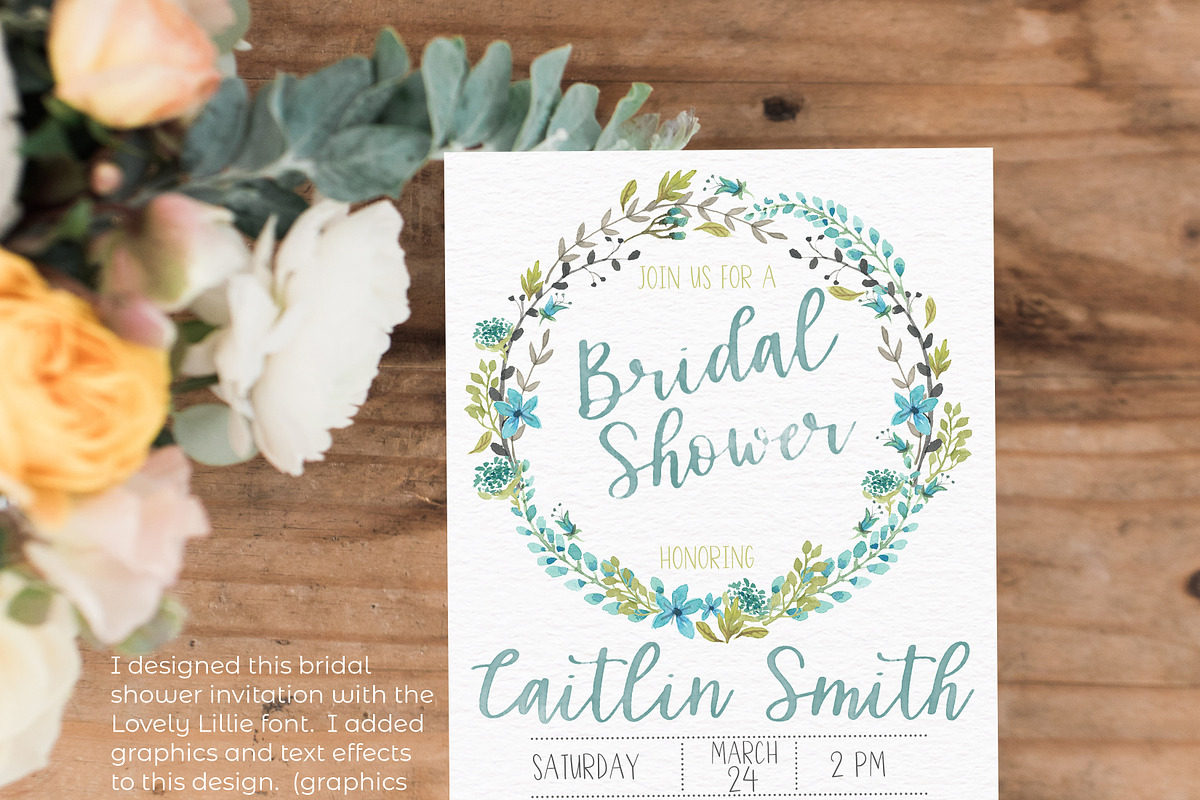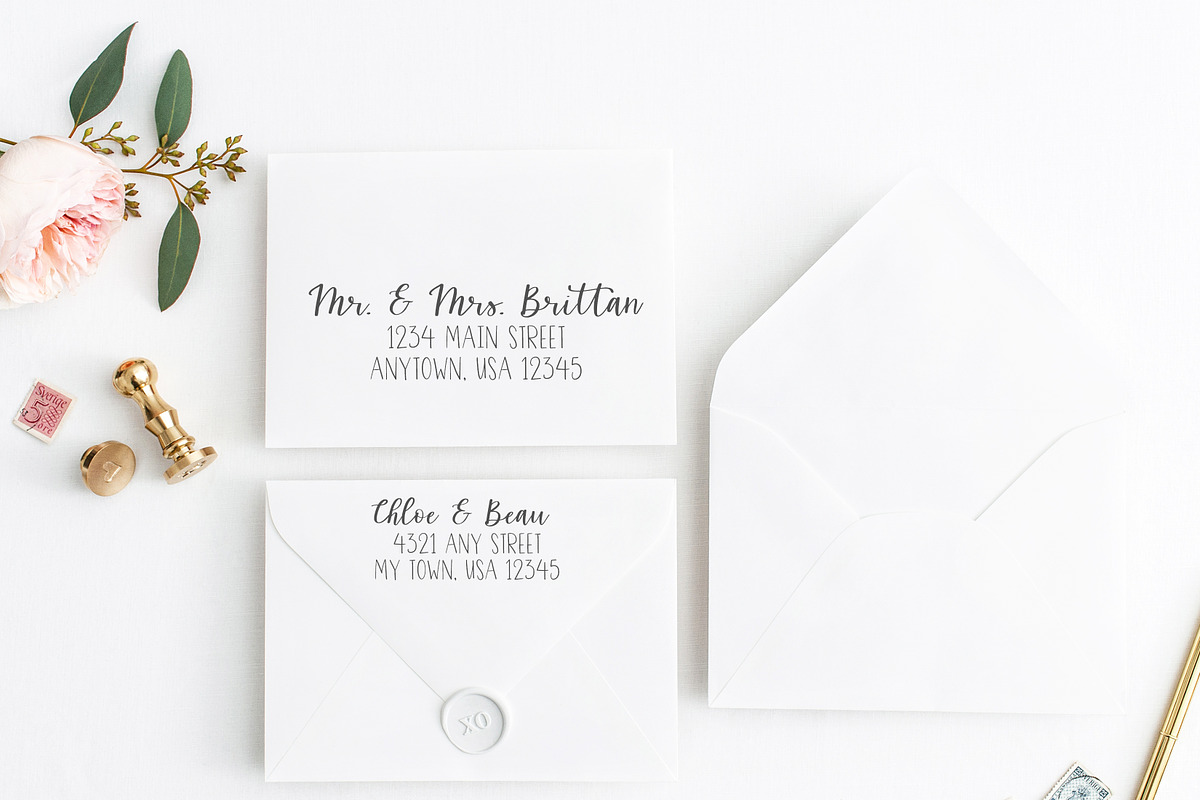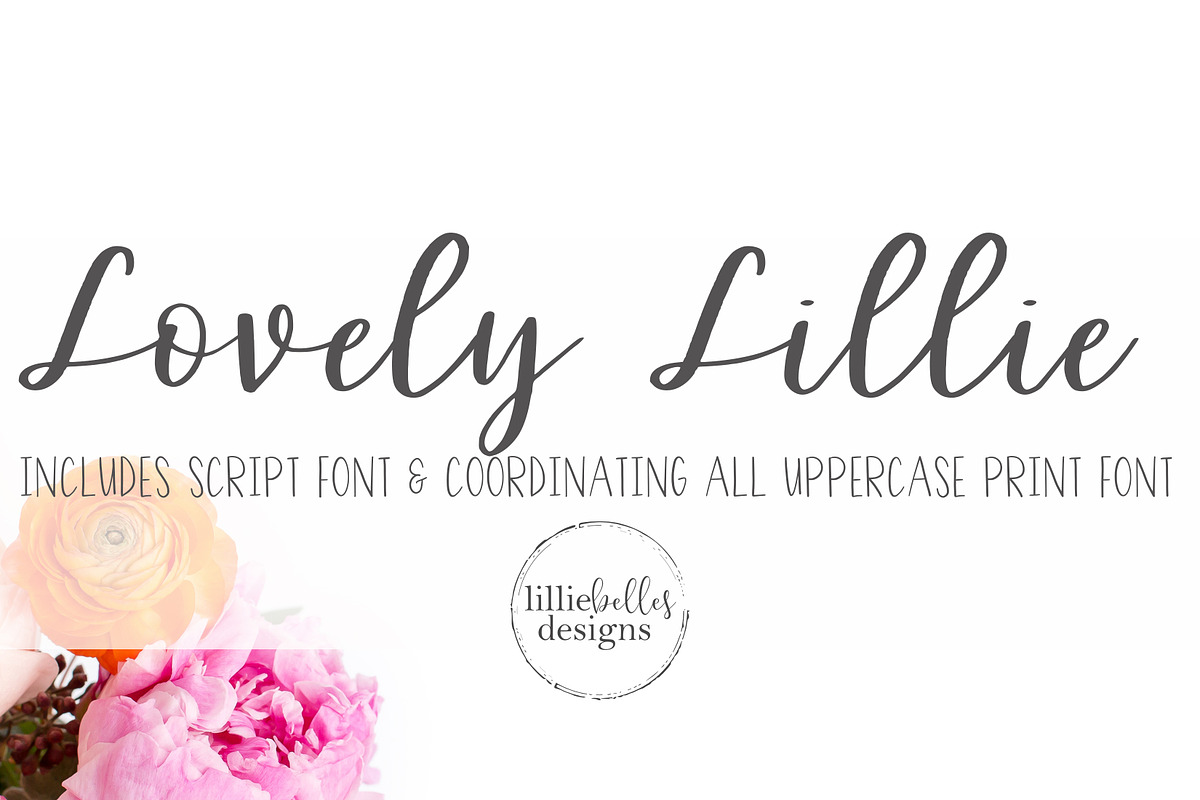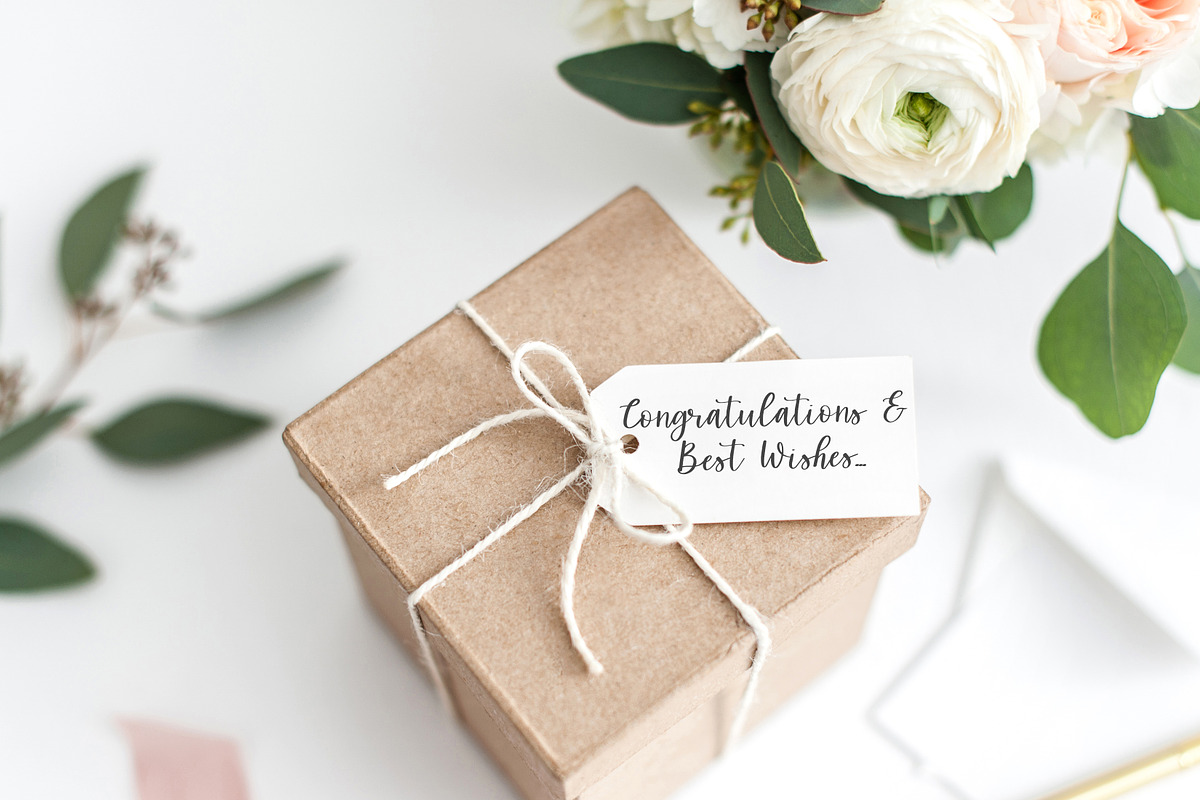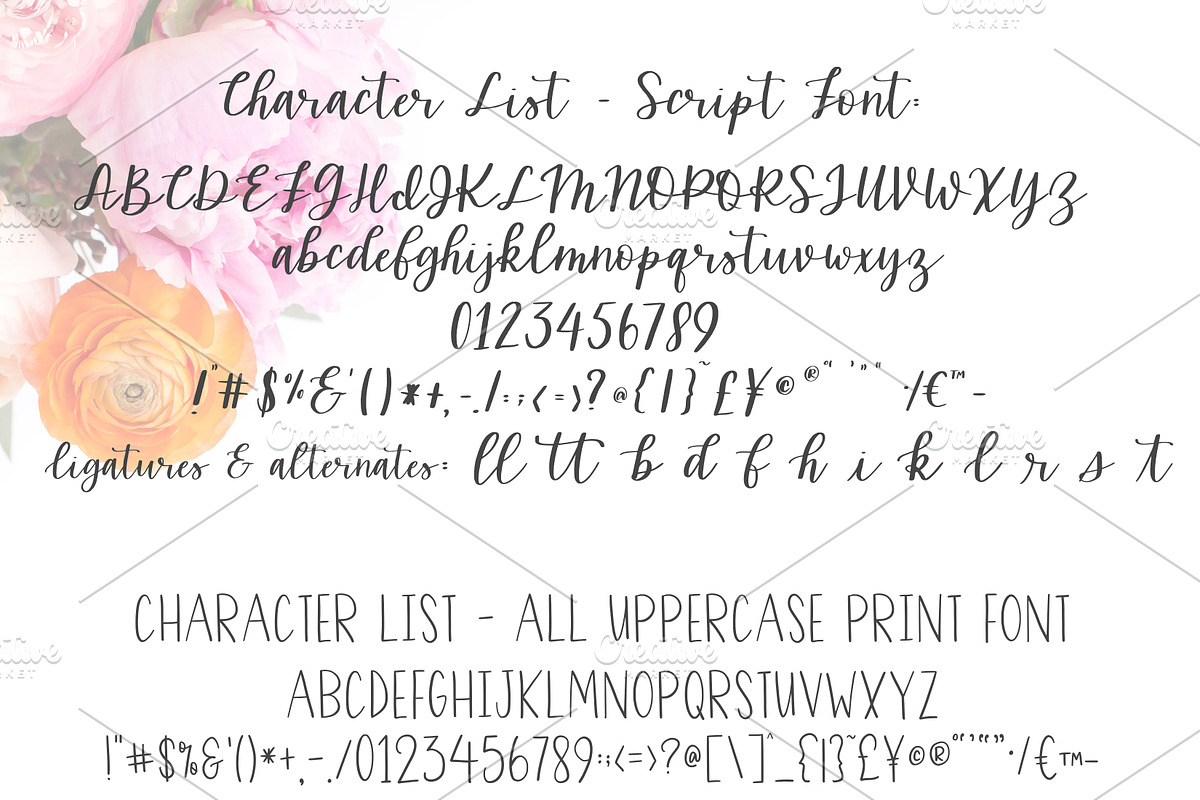
Lovely Lillie - Handwritten Fonts
Lovely Lillie - Handwritten fonts These fonts pair perfectly together and are great for invitations, gift tags, cards, and logos. Please note that this is not a smooth font - I left it this way for a more authentic pen & ink appearance.
- Lovely Lillie Script font
- Lovely Lillie Print font (all uppercase print font)